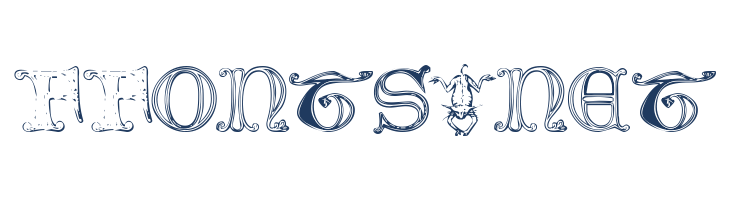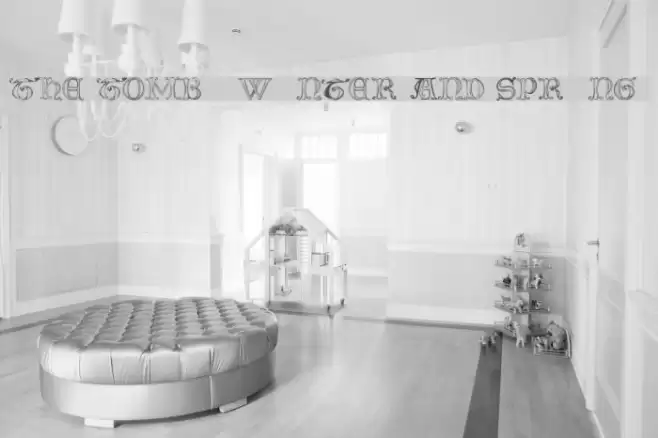
The Tomb [winter and spring] 1 Font
The Tomb [winter and spring] 1 Description
This font features an ornate and decorative style, characterized by intricate flourishes and embellishments that give it a vintage and gothic appearance. The uppercase letters are adorned with elaborate details, making each character a piece of art. The lowercase letters maintain the same decorative theme, ensuring consistency throughout the typeface. The numbers and special characters are designed with similar ornate elements, adding to the overall cohesive look. This font is ideal for projects that require a dramatic and artistic flair, such as invitations, posters, or branding for luxury products.
An ornate, decorative font with intricate flourishes and a vintage gothic style from Old fashioned fonts.
- Proposed Projects: Ideal for invitations, posters, luxury branding, and artistic projects requiring a dramatic flair.
- Overall Style: Vintage, Gothic, Decorative
- Use Case: Headlines, Logos, Artistic projects